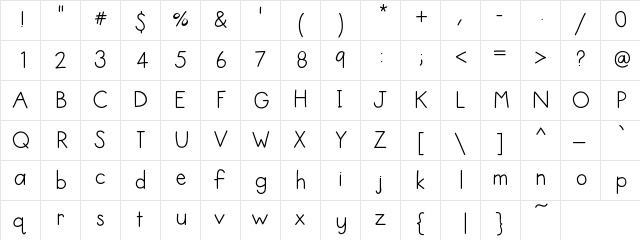
Complete HelloIHeart1 Medium glyph index. Displaying only characters natively supported by HelloIHeart1 Medium font.
HelloIHeart1 is a composed and adaptable typeface that performs quietly and consistently across a wide range of design contexts.